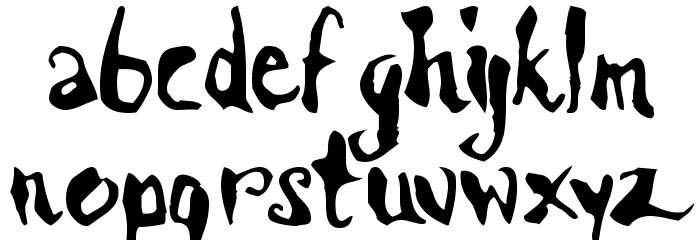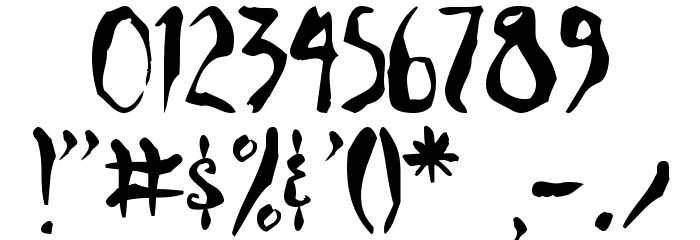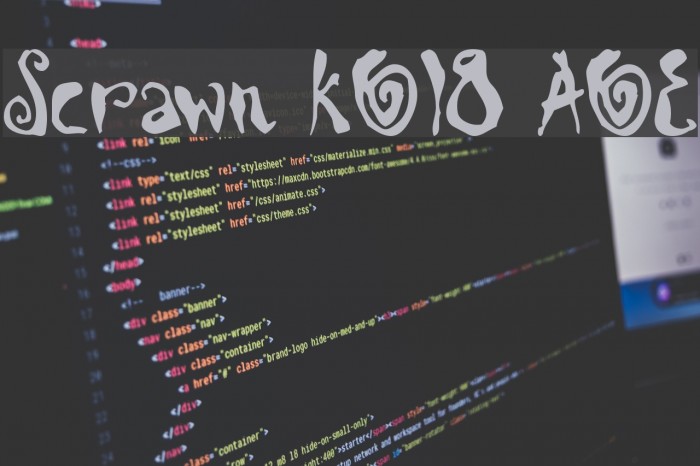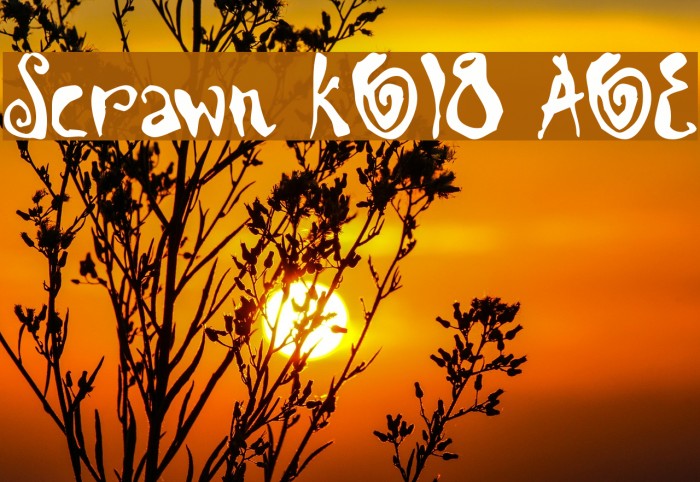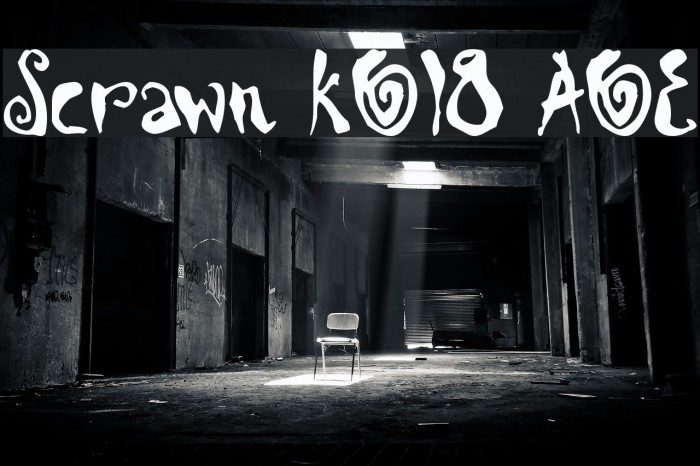
Scrawn KOI8 AOE Font
This font features a highly decorative and artistic style, characterized by its bold and expressive strokes. The uppercase letters exhibit a whimsical and playful design, with some characters incorporating spiral and wavy elements that add a dynamic feel. The lowercase letters maintain this artistic flair, with varying stroke thickness and unique shapes that give each character a distinct personality. The numerals are equally bold, with an irregular and hand-drawn appearance that complements the overall style. Special characters are creatively designed, enhancing the font's decorative nature. This font is ideal for projects that require a touch of creativity and individuality.
A bold, decorative font with whimsical and artistic strokes.
- Proposed Projects: Ideal for creative projects such as posters, album covers, artistic branding, and unique invitations.
- Use Case: Headlines, Logos, Artistic projects